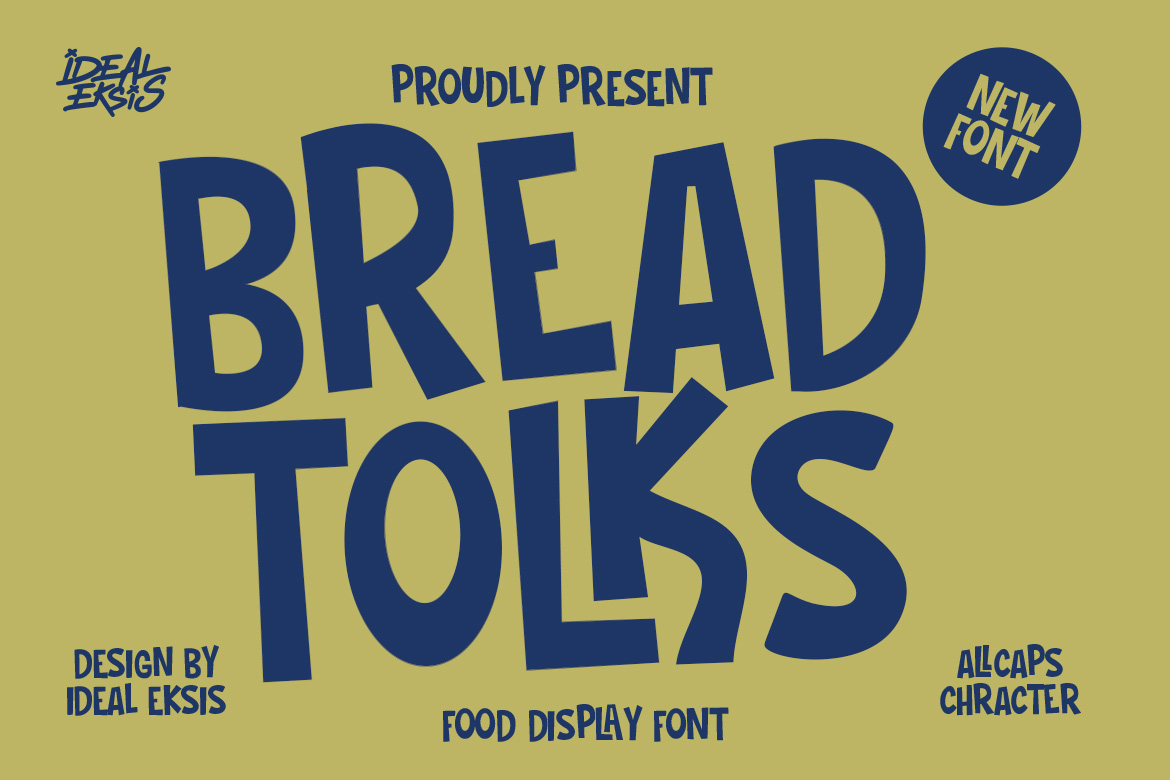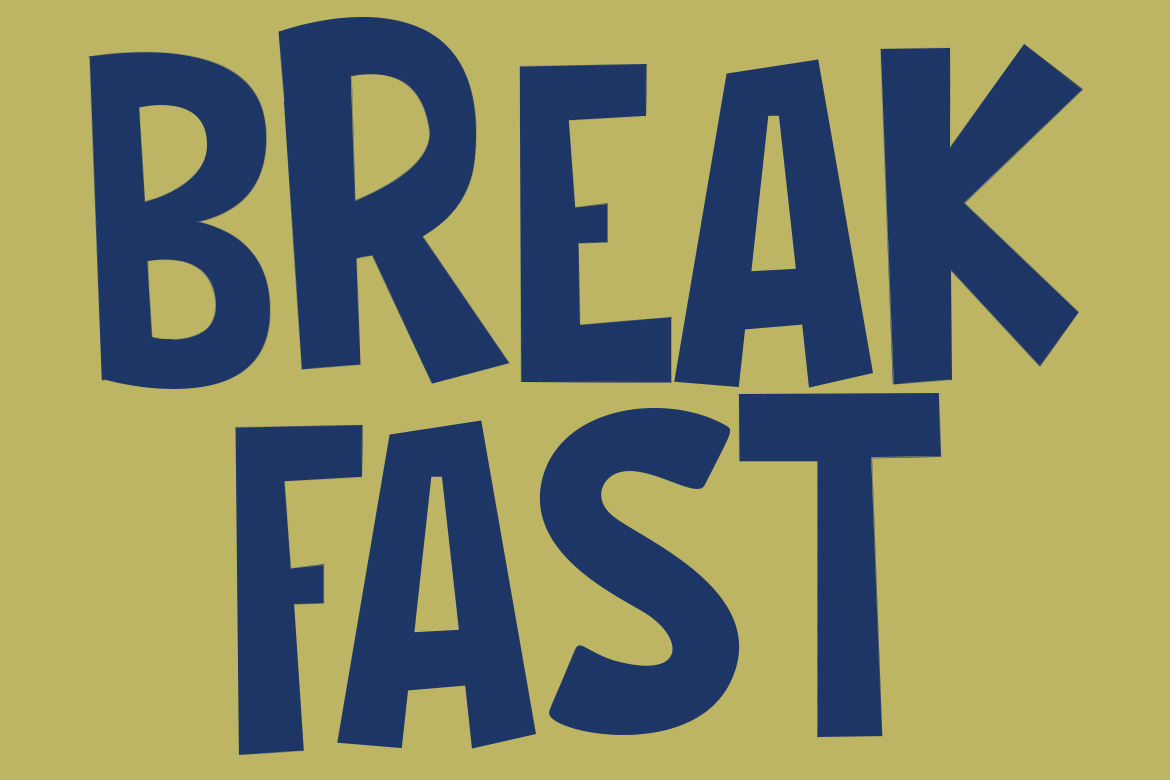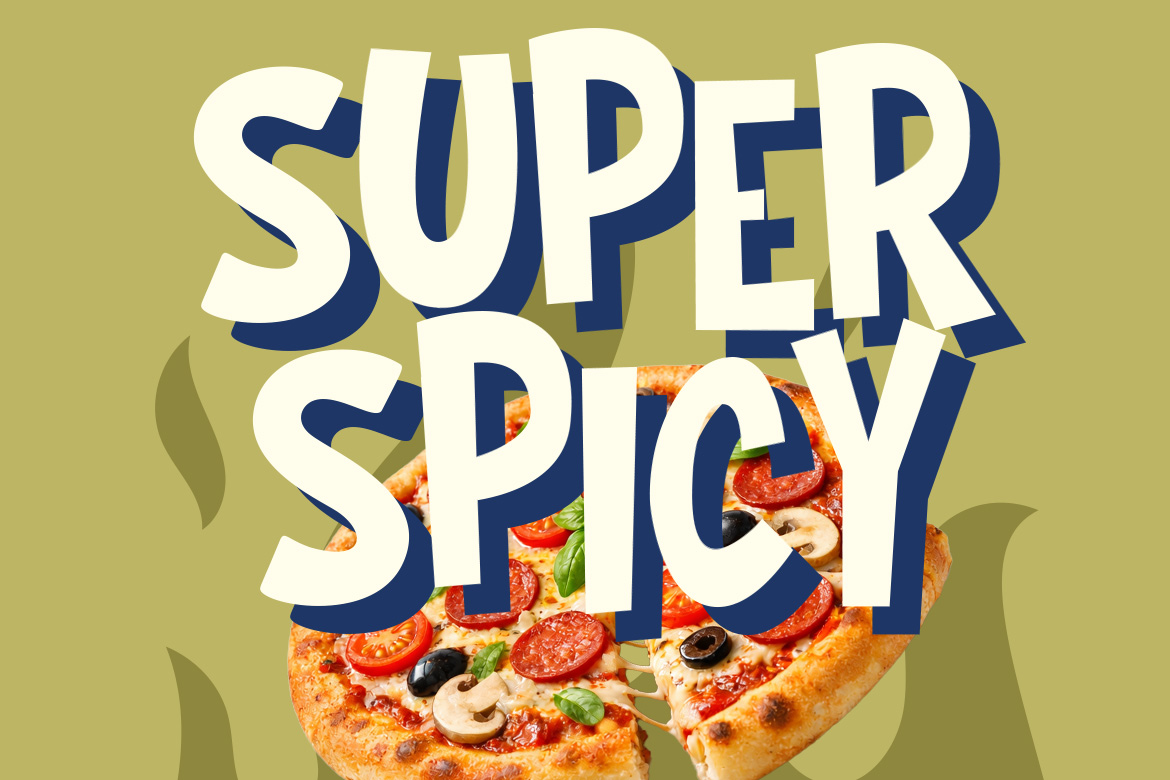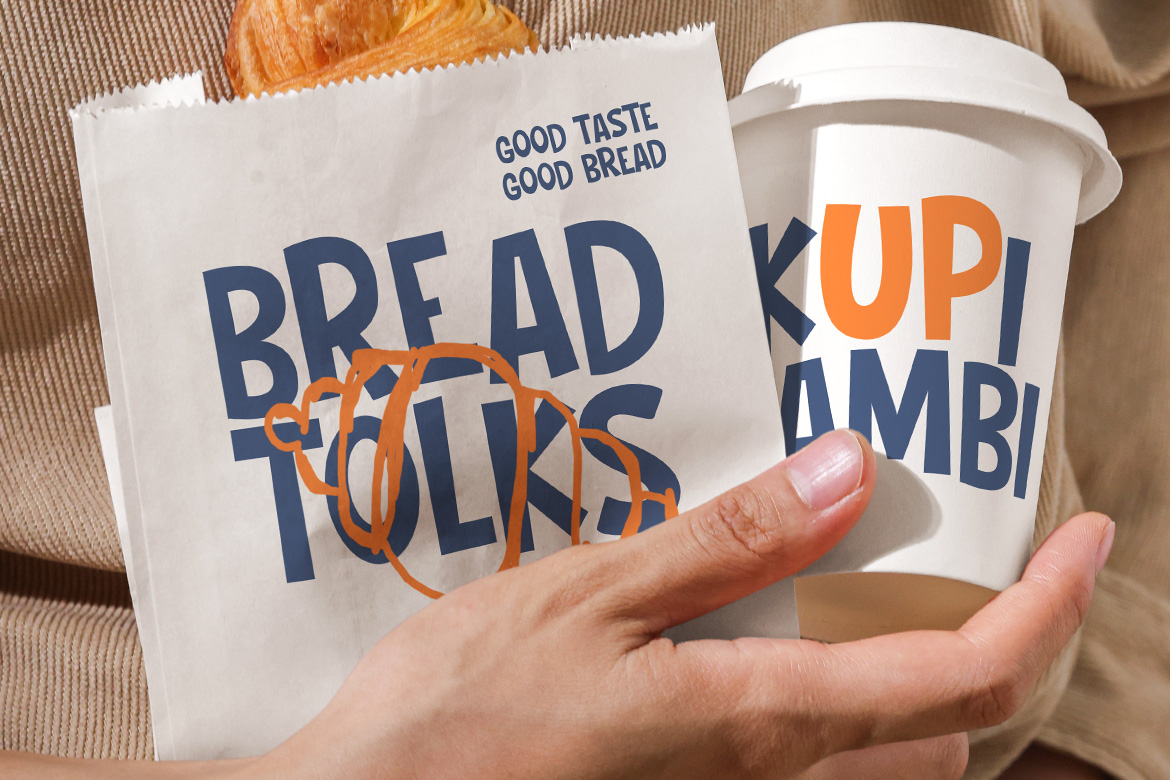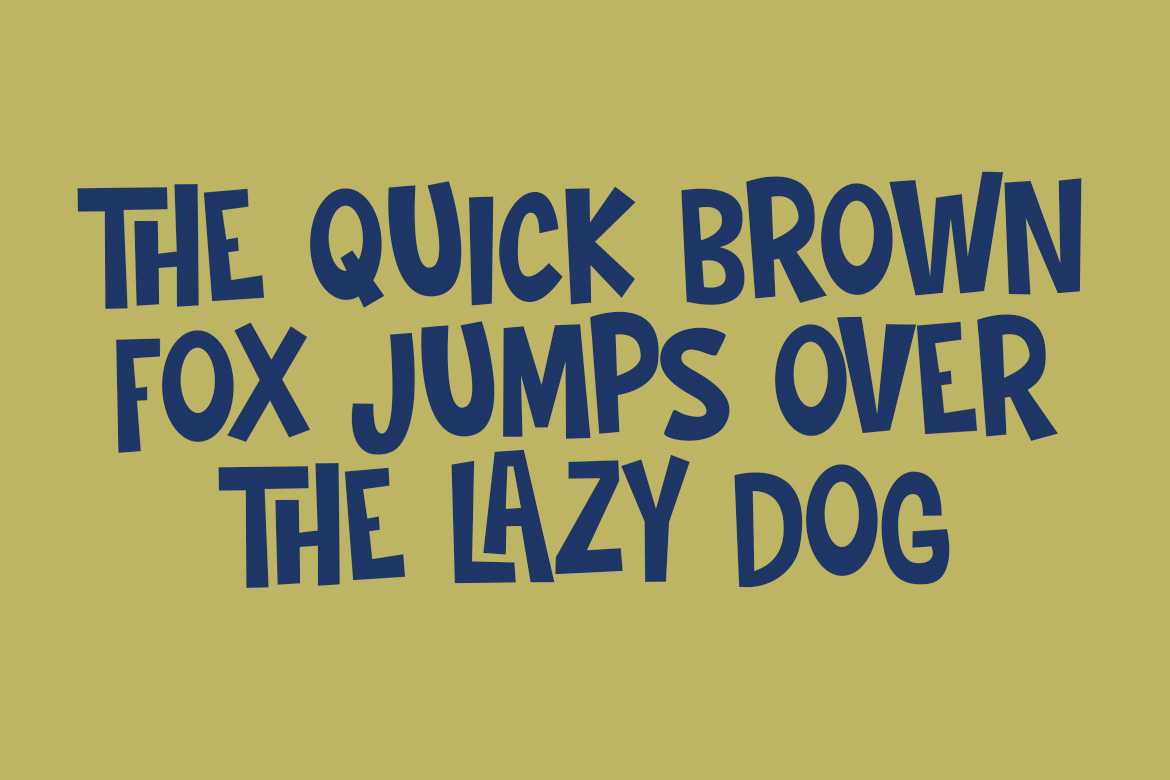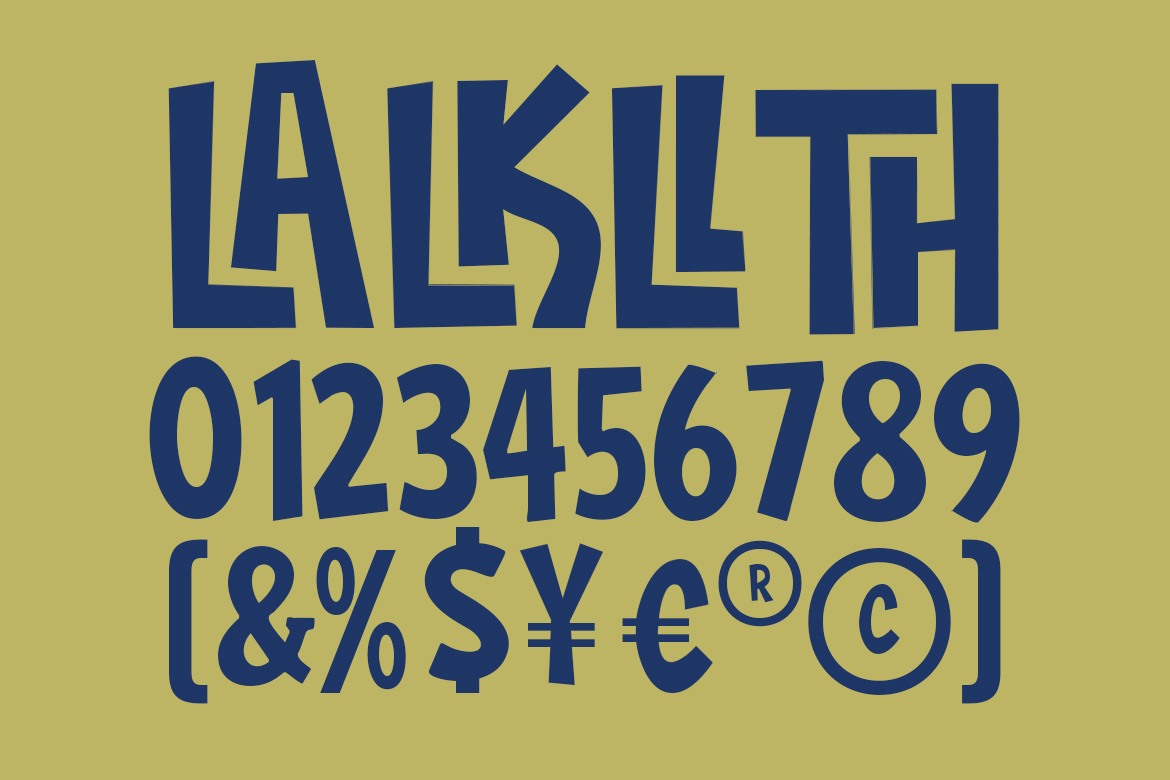
This bold display font features chunky, hand-drawn letterforms with a playful and energetic character. The strokes are thick and irregular, giving each character a unique, organic shape that feels approachable and friendly.
Feature :
- Uppercase (All Caps)
- Ligatures
- Numerals
- Punctuation
Perfect for
- Bakery and café branding
- Food and beverage logos
- Restaurant menus and signage
- Coffee shop and donut shop designs
- Food packaging and labels
- Social media food promotions
- Kitchen-themed posters and prints
- Culinary blogs and recipe graphics